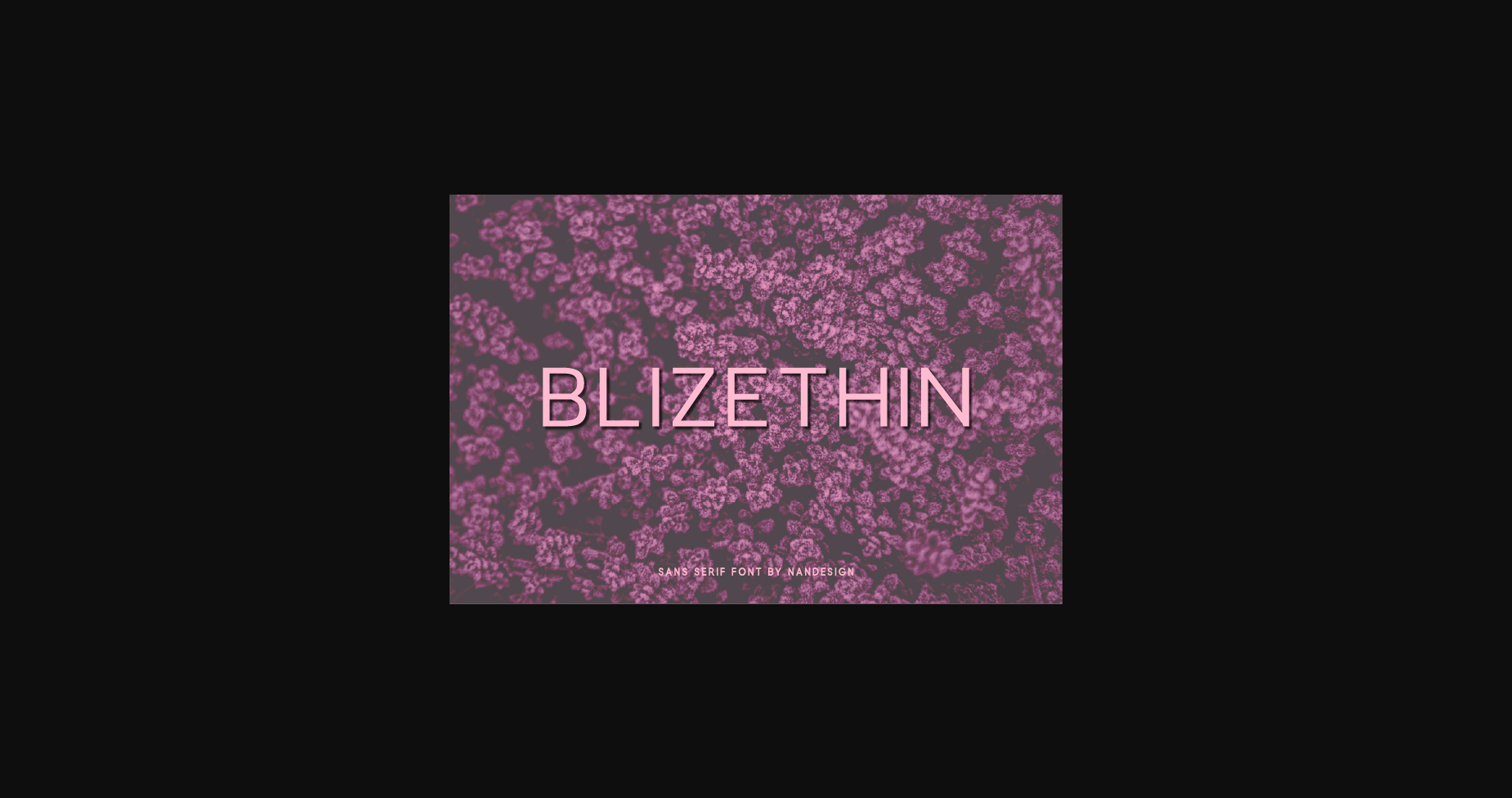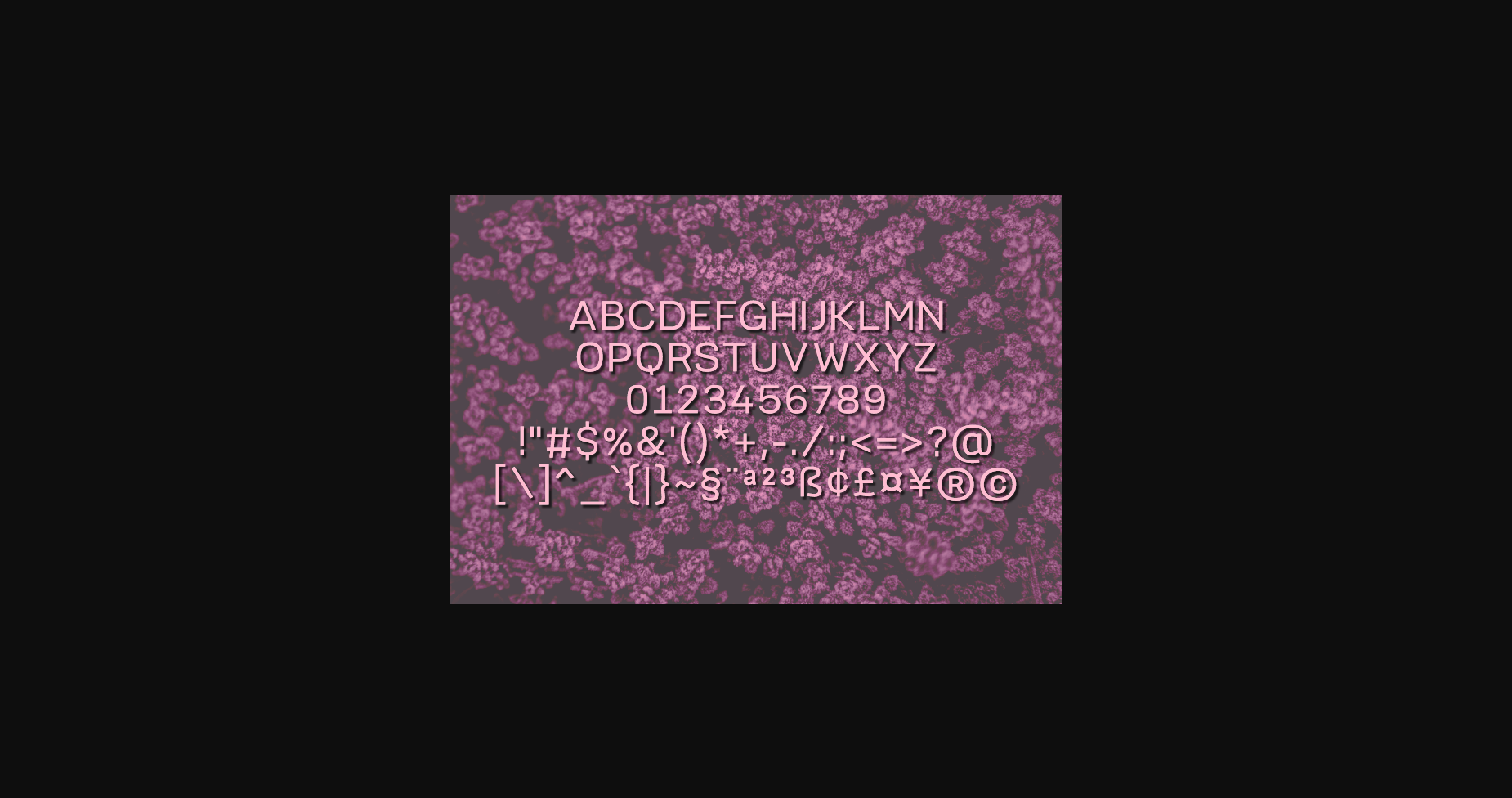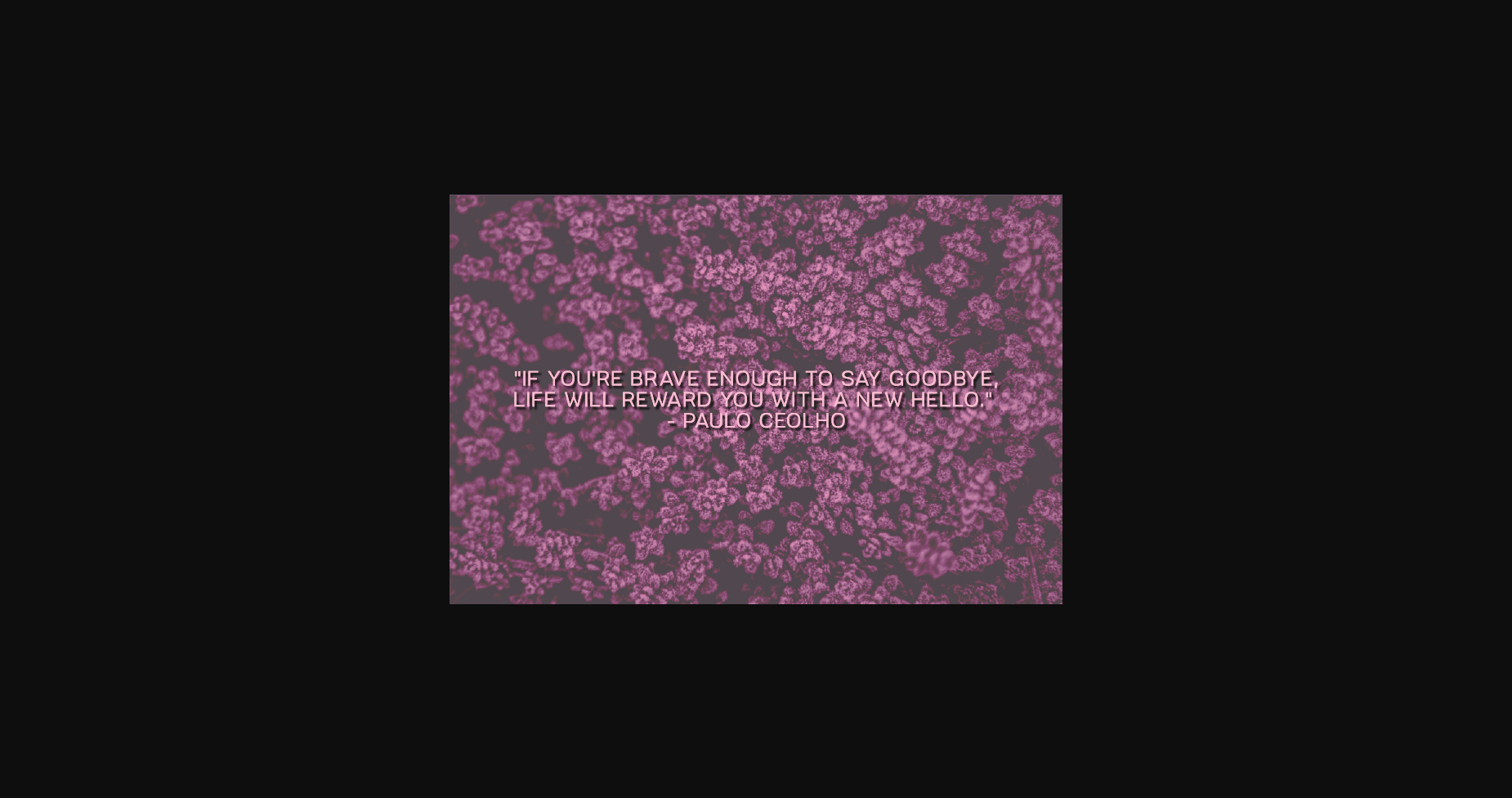
About Blizethin Font
Blizethin is a thin lettered and simple sans serif font.
Use it to create headings, gorgeous invitations, stunning logos, and various other designs that require a futuristic touch.